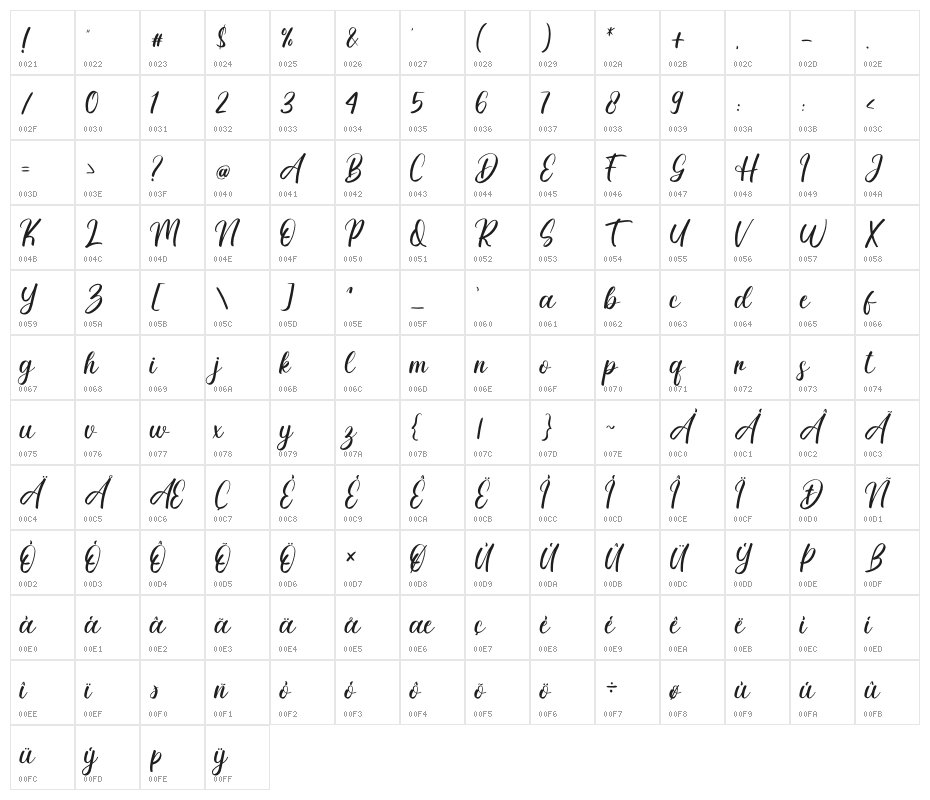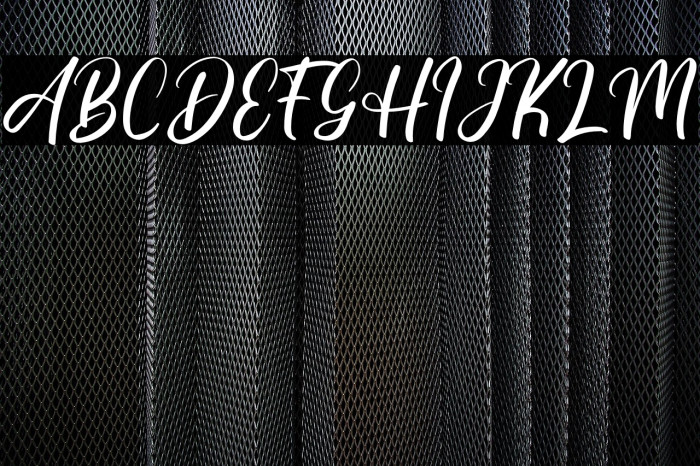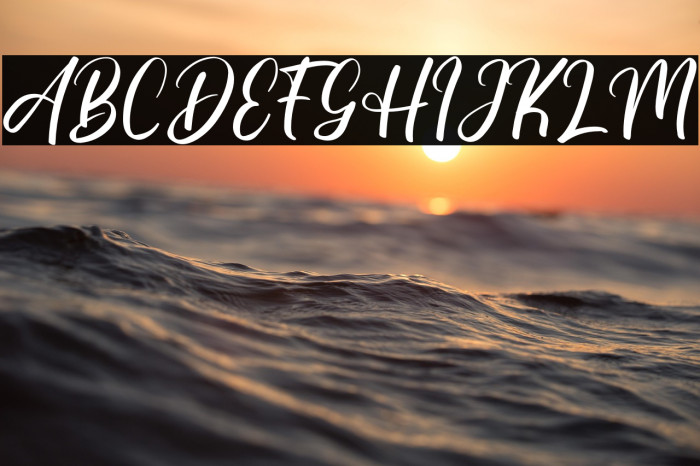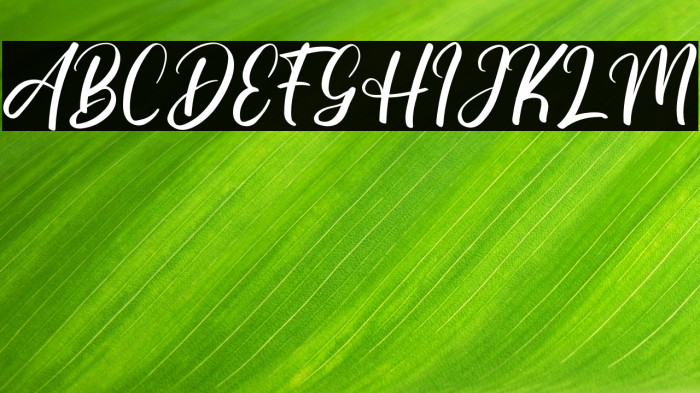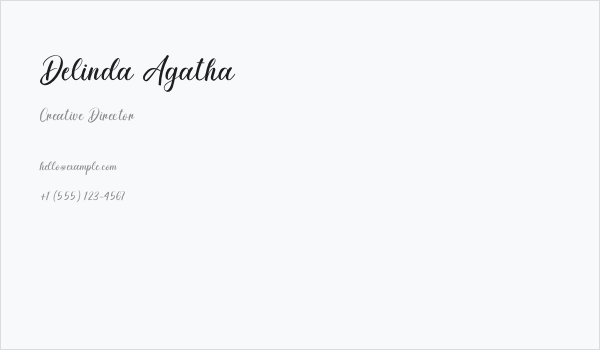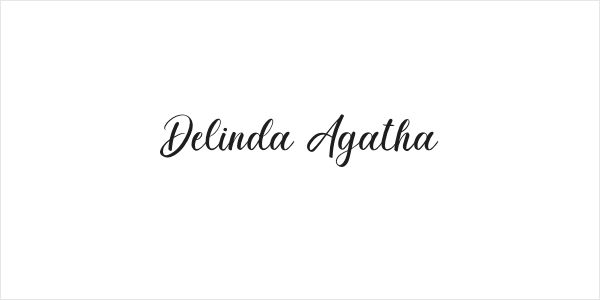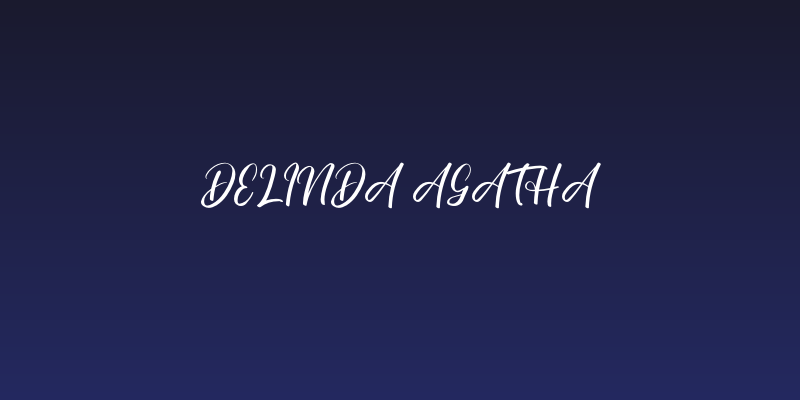
Delinda Agatha Font
Delinda Agatha Description
This font features a flowing, cursive style that exudes elegance and sophistication. The letters are interconnected with smooth, sweeping strokes, giving it a handwritten appearance. The uppercase letters are bold and prominent, while the lowercase letters maintain a consistent flow, enhancing readability. Numbers and special characters are crafted with the same fluidity, ensuring a cohesive look across all text. The overall design is modern yet timeless, making it suitable for various creative applications.